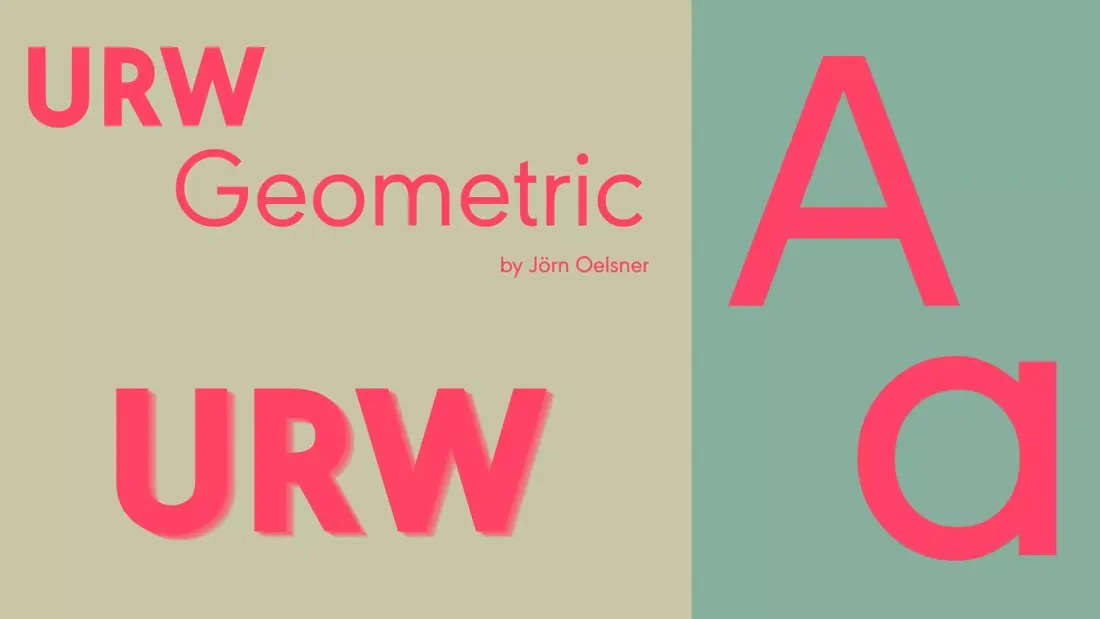
About URW Geometric Font
URW Geometric is a sans serif font that was inspired by those German geometric types of the 1920s but made for modern-day usability. The character shapes are optimized to provide proportions and have a better balance. The x-height has been raised, and ascenders and descenders are reduced. Special glyphs, typically designed in the aftermath of the geometric typefaces that were originally created in the 1920s, are seamless to be integrated into URW Geometric. These design elements make it easier to read and use. This font is practical and simple, yet strong and harmonized in its form It is a contemporary version that is a reinterpretation of the predecessor. In addition to the standard symbols, the design features an emphasis on the glyphs that are unique to it. URW Geometric font download is available here
URW Geometric was designed by Jörn Oelsner in 2015 and published by URW Type Foundry. With its 10 weights, ranging in size from Thin to Black, and 10 additional oblique designs that offer great flexibility in mind. The most light-colored styles shine brightly in large sizes. The middleweights are ideal for body copy, and the more striking versions emphasize details or provide a significant impact on headlines or information. These optically balanced designs have been designed to function in perfect harmony with each other.
Usage Of URW Geometric
- Designing Work: Because the font comes in ten different styles, it is suitable for each section you require. For geometric shapes it is not able to provide artistic design options, but it is a stunning look for designs.
- Headline: To use for Text and Headlines, URW Geometric font is very suitable to use. It can be used in a variety of formats based on your requirements.
- Documentation or work for official use: Futura font has the appearance that is appropriate for official documentation and documents.
- Logos: You are able to design your logo using it.
- Websites: I’ve seen many websites that use this font.
Fonts Similar to URW Geometric
Font Combination
URW Geometric+Courier New
If you’re looking to design your website to have a contemporary and old-fashioned style, this font pair is the perfect choice for you. The URW Geometric was specifically designed for use on the internet, while Courier New is a classic typewriter font. When you’re writing on paper (metaphorically) you may not think that they’d be the perfect font pair however, you’re wrong. The URW Geometric’s geometric, light, and bold sans-serif fonts complement Courier New’s heavy retro look perfectly.
WHAT TYPE OF FONT IS URW Geometric?
URW Geometric is a sans serif font designed by Jörn Oelsner in 2015 and published by URW Type Foundry.